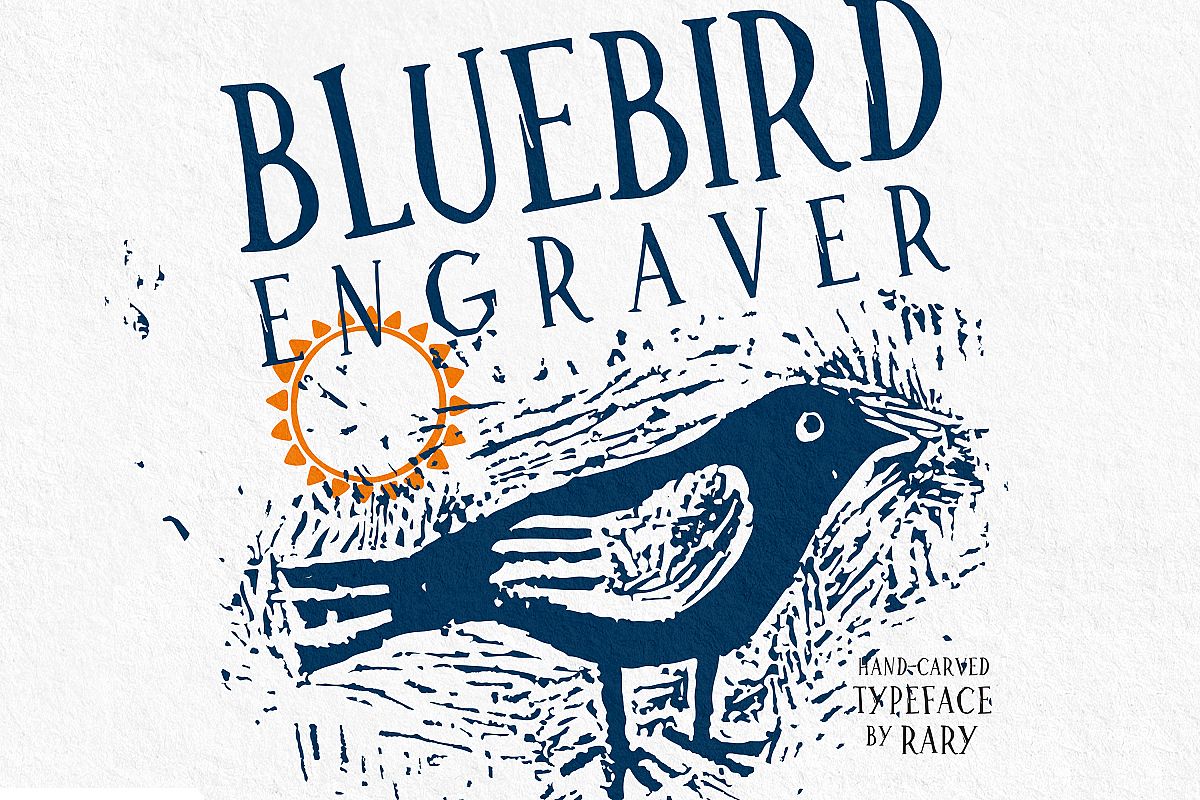
Bluebird engraver Font | An artisan hand-made stamp type.
Bluebird Engraver is handmade artisan font. Hand-carved characters are ideal to combine with most hand-made graphics and also the right choice for folk art creations. It gives a sketchy feel that makes your hand lettering compositions so catchy. Make true woodcut and linocut impressions in combination with ink and paper textures. Make beautiful stamp designs.